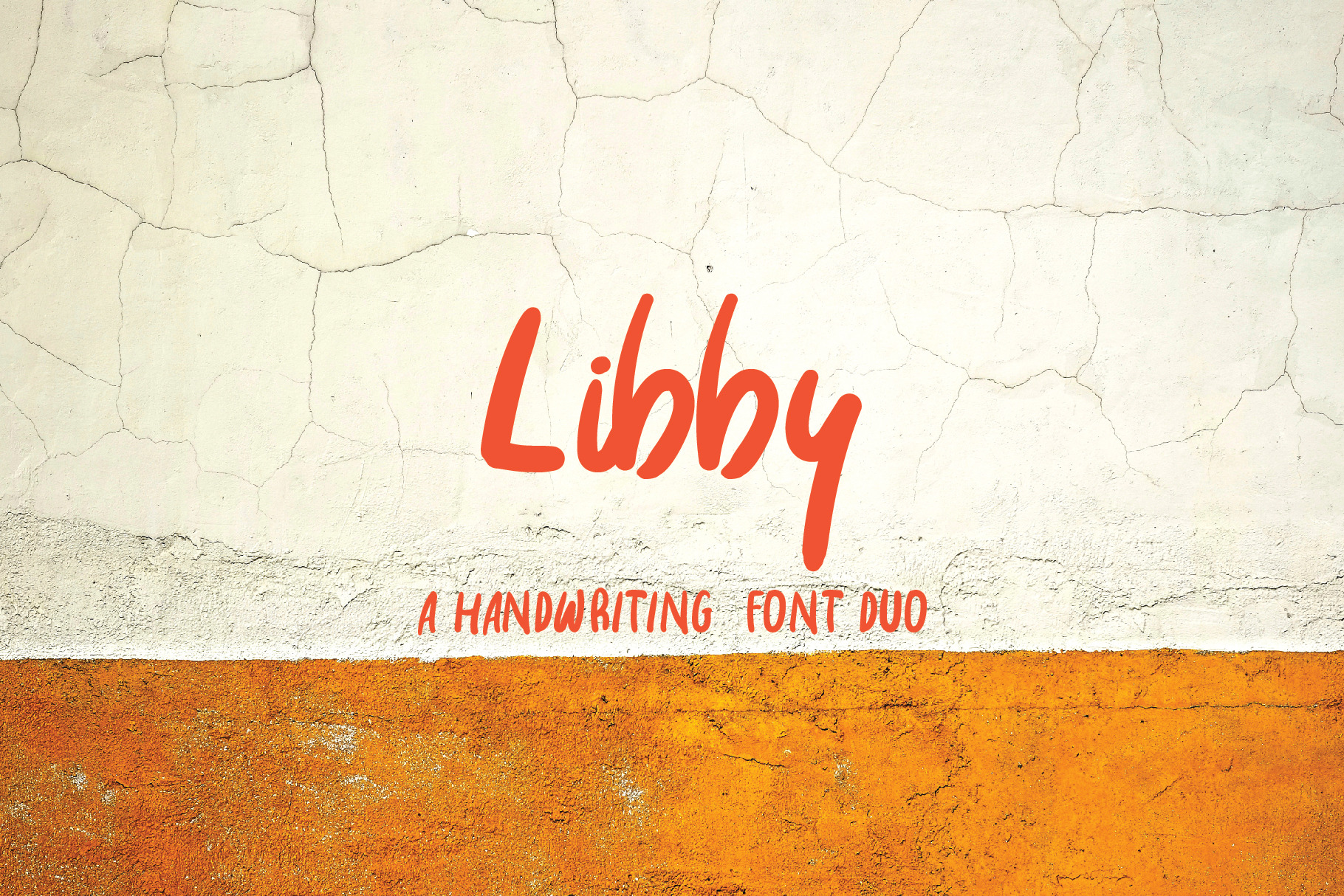
Libby Font - A Handwriting Font Duo
Libby Font - A Handwriting Font Duo BONUS VECTOR Libby font is font duo , not for casual use but suitable for Headline , Book cover , Presentation graphic , logo and many more.
Libby font is rude font but with the soft texture and lovable feel
Libby Font is Multilangual